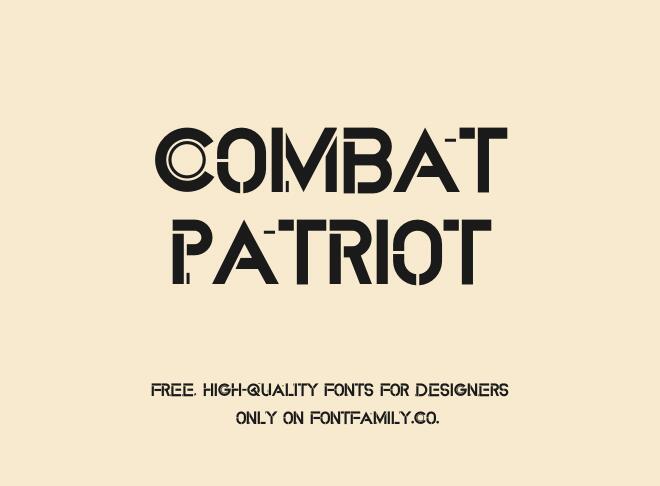
Combat Patriot Font
Introducing Combat Patriot Font, a modern, bold, and rustic font with a touch of vintage appeal. This font mirrors the strength and resilience of the patriot spirit, making it an excellent choice for powerful headlines, posters, or banners. Its unique character set and well-balanced kerning give it a professional look while maintaining its rugged charm. Comparatively, it resembles a fusion of Impact and Rockwell but with more personality. Combat Patriot Font is perfect for any design project that requires a masculine and impactful typography. Whether you're designing a war-themed video game cover or a patriotic event flyer, this font is a top-notch choice. Its boldness commands attention, while its rustic attributes provide a warm, welcoming vibe.